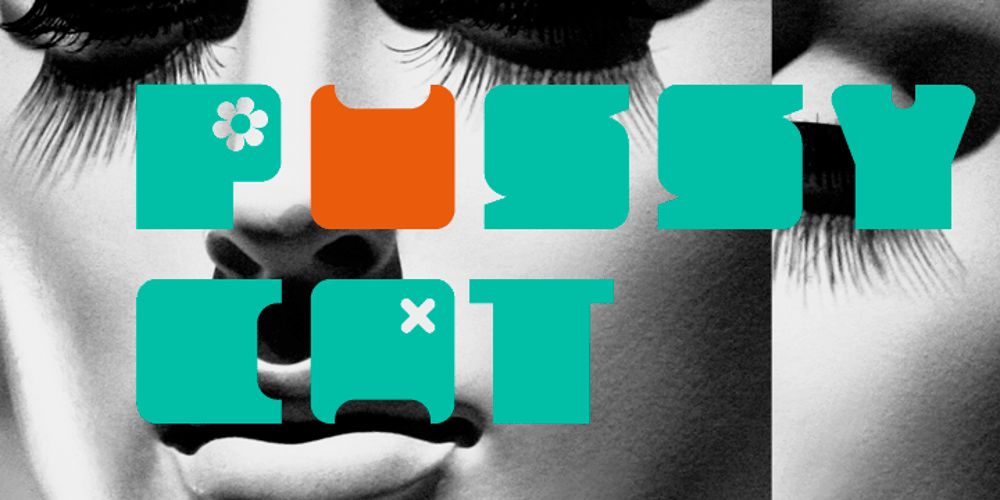
Mobie FA
Mobie FA font
Mobie FA Font Family was designed by Magdalena Frankowska and published by Fontarte. Mobie FA contains 4 styles and family package options. FA Mobie is a contemporary decorative fat face. For use on posters, leaflets, ads.